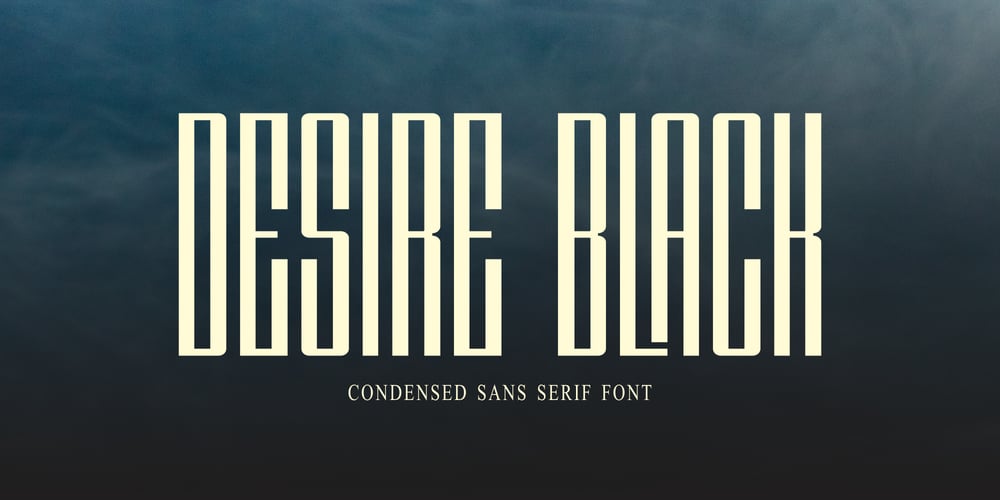
Desire Black Font Family was designed by Akhmad Afandhi and published by Evo Studio. Desire Black contains 1 styles and family package options. Desire black typeface is designed by Evo Studio. A display typeface with bold and bold contrasts. You’ll love using the many alternative options and binders, perfect for creating great designs like logos, heads or titles.